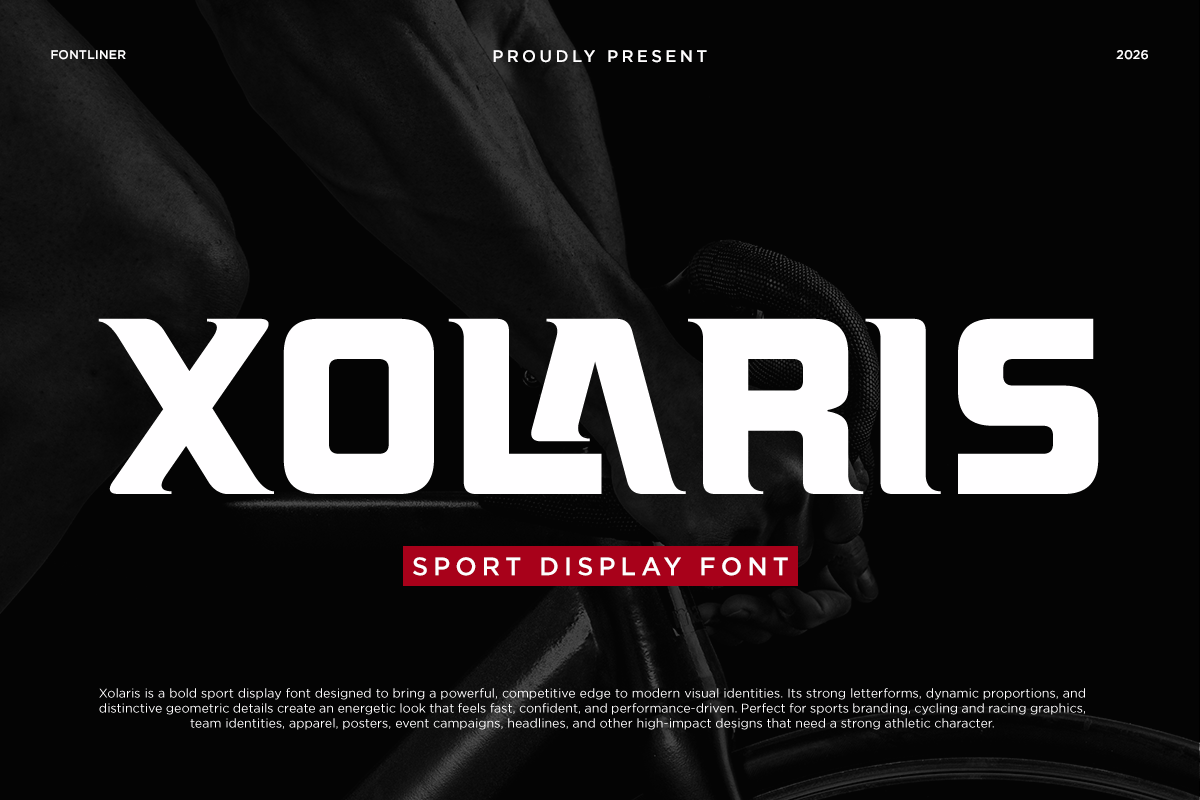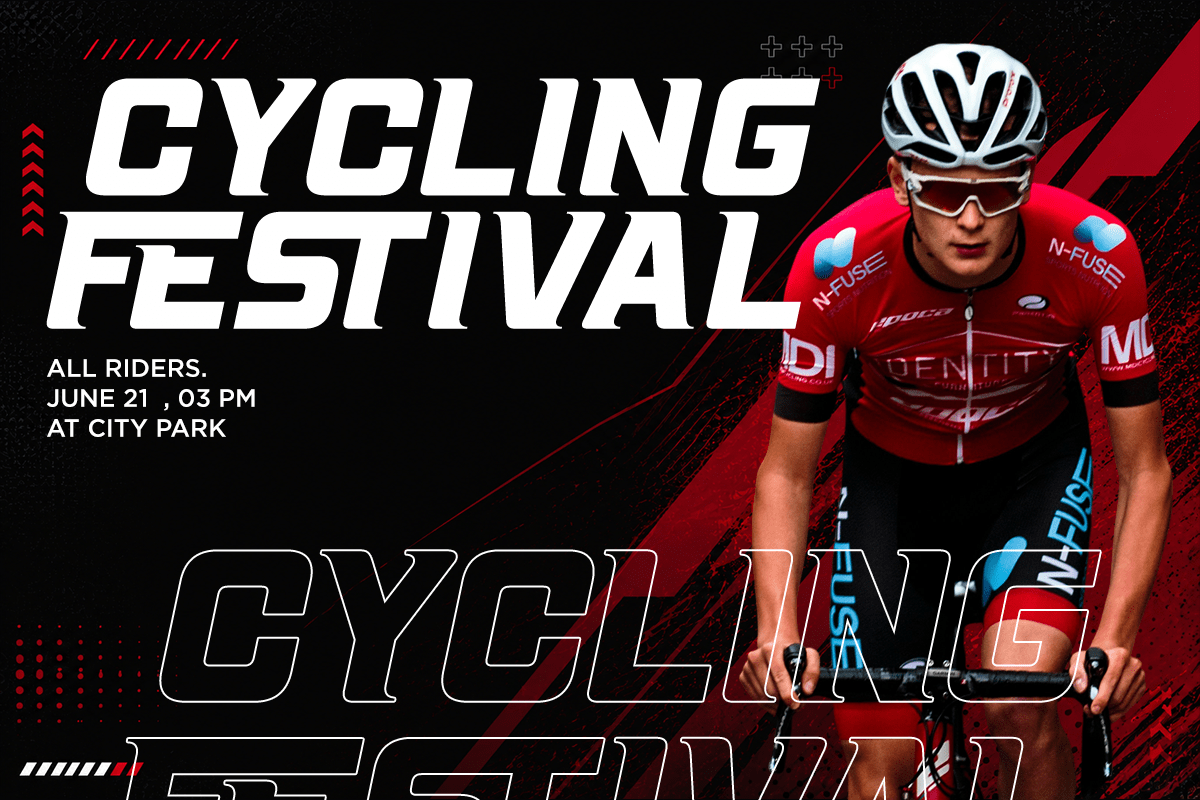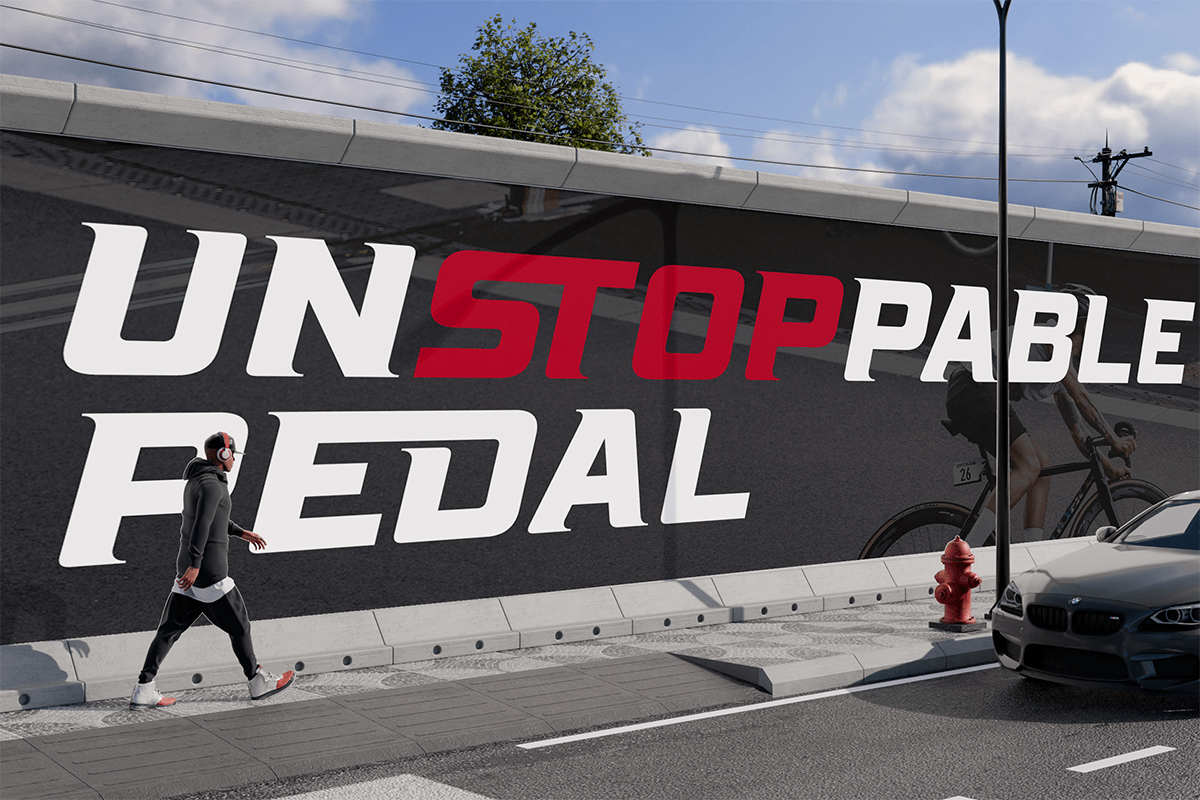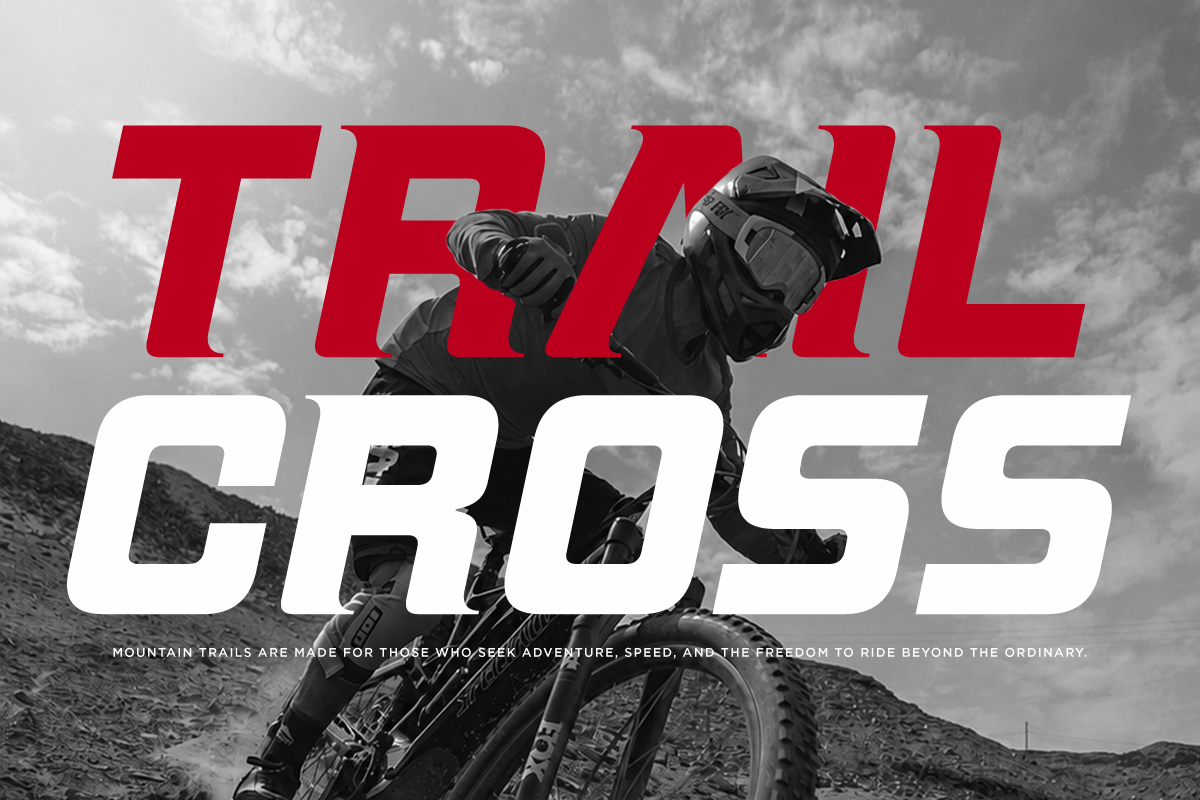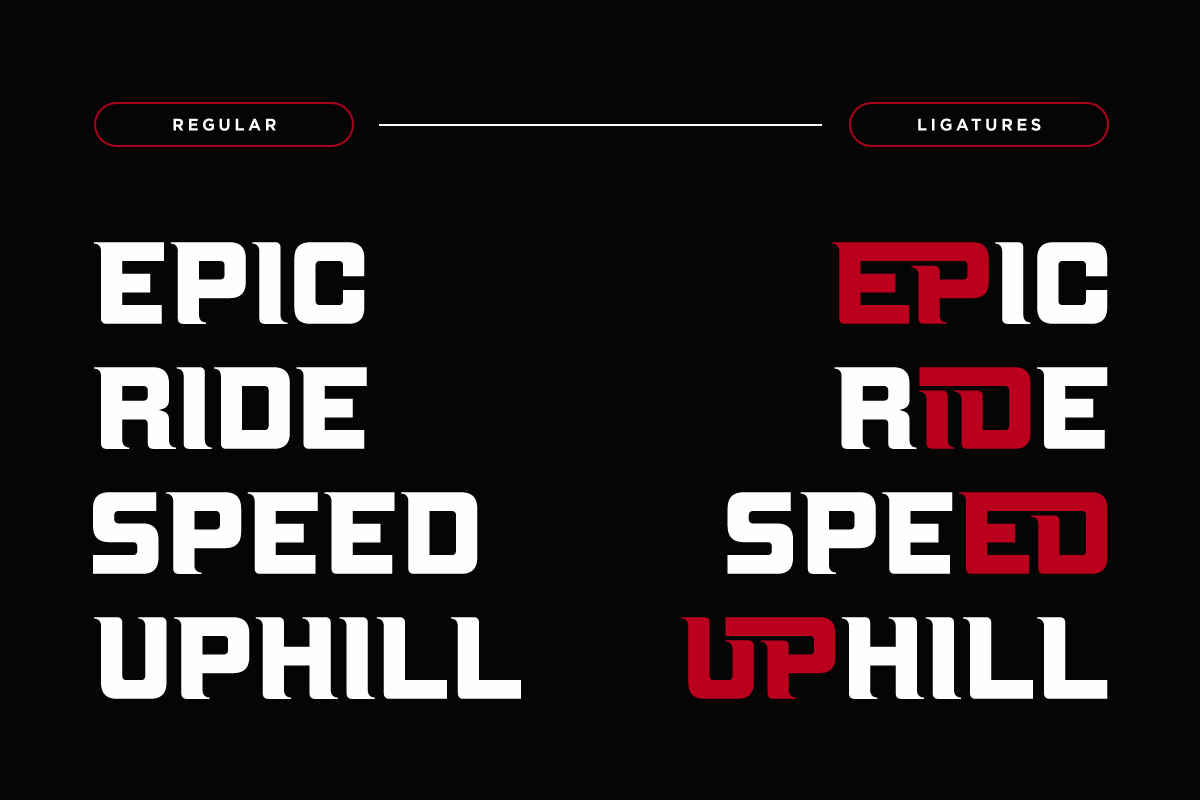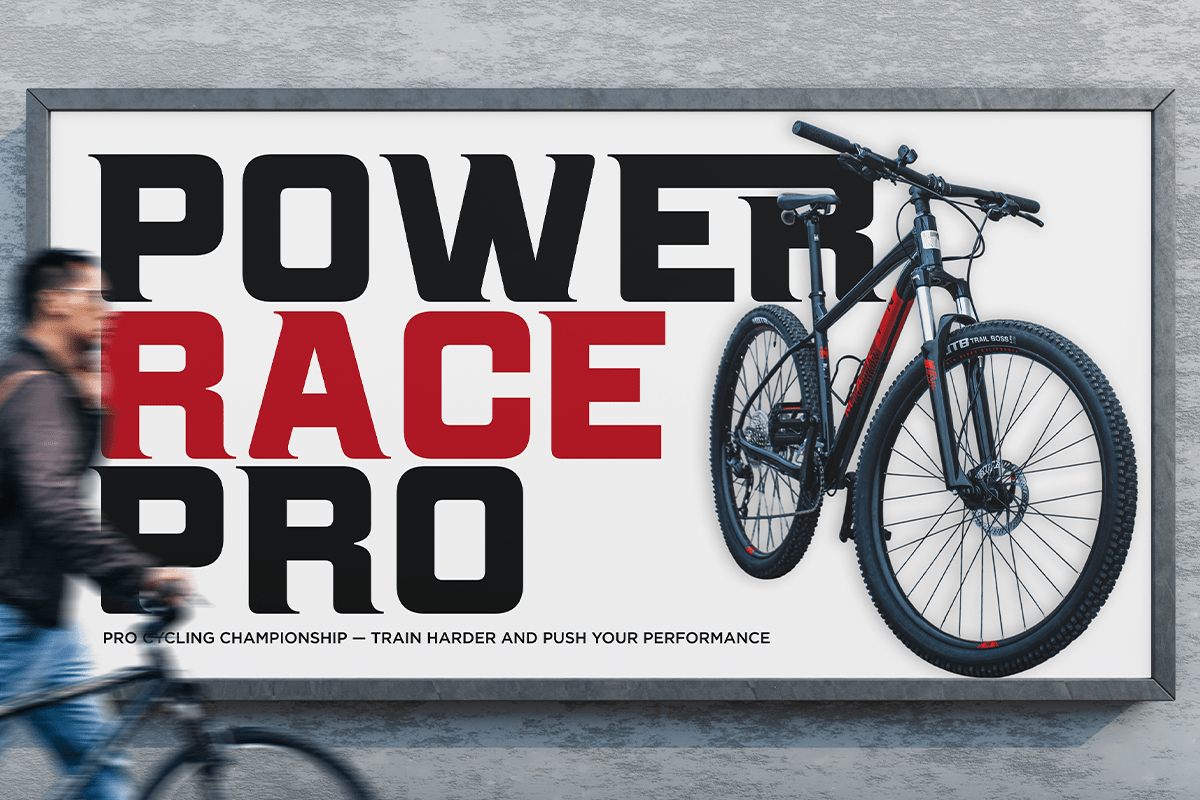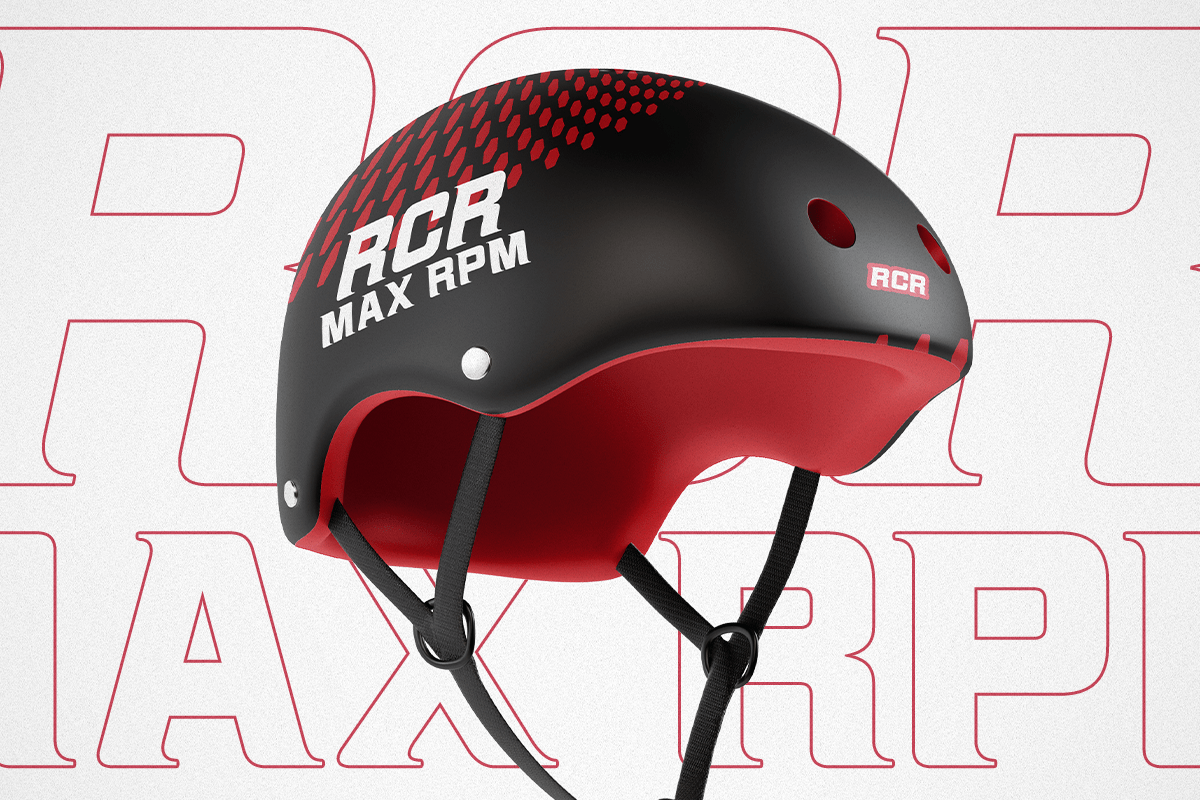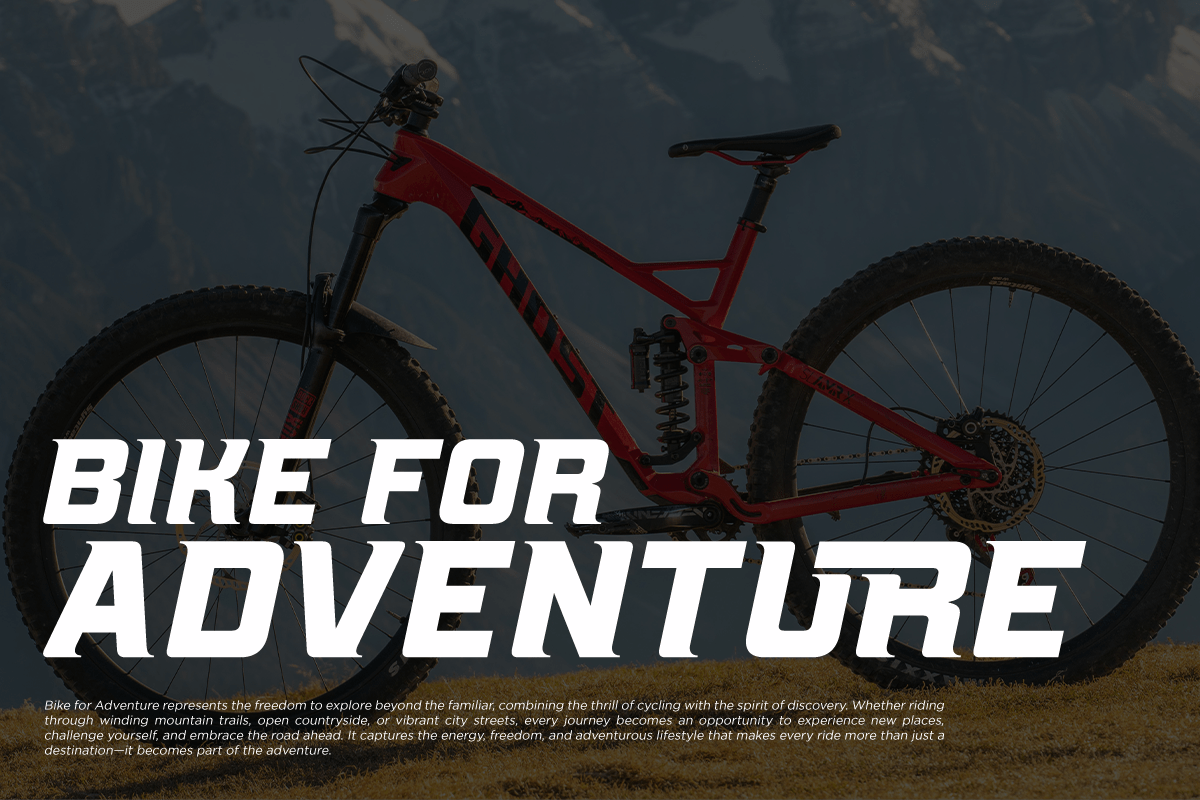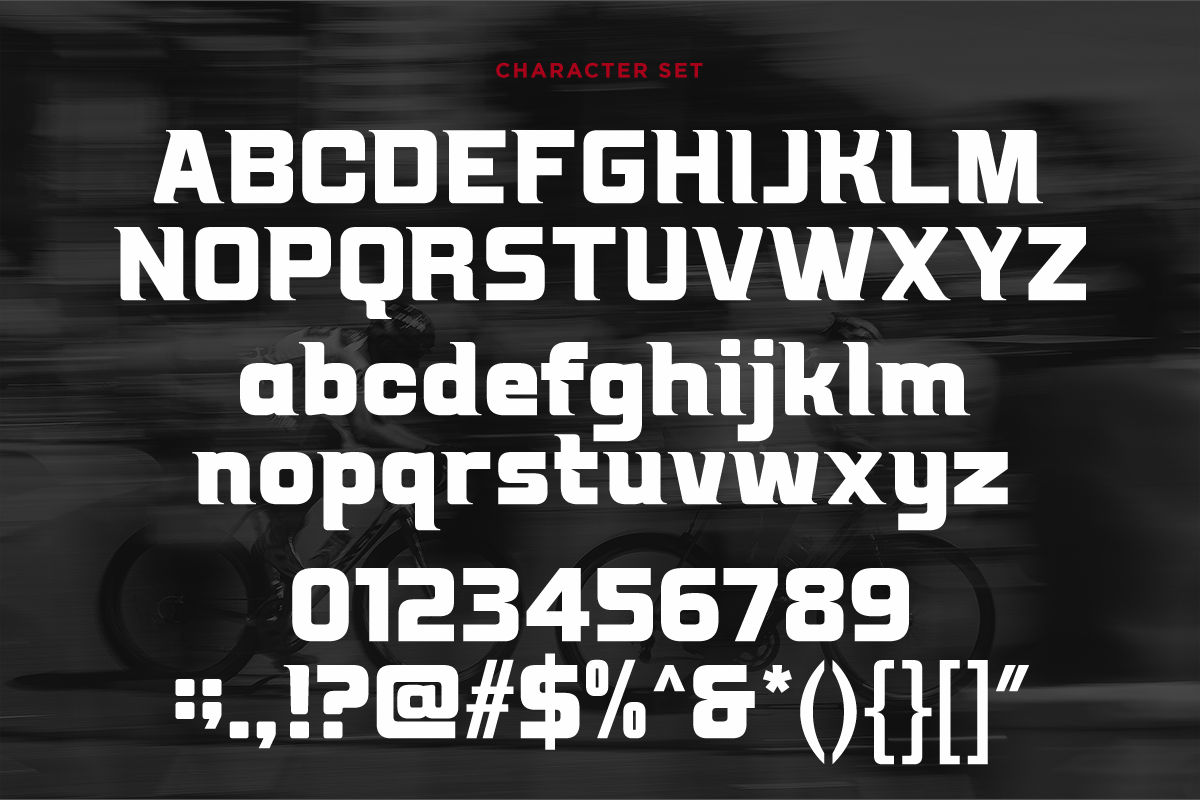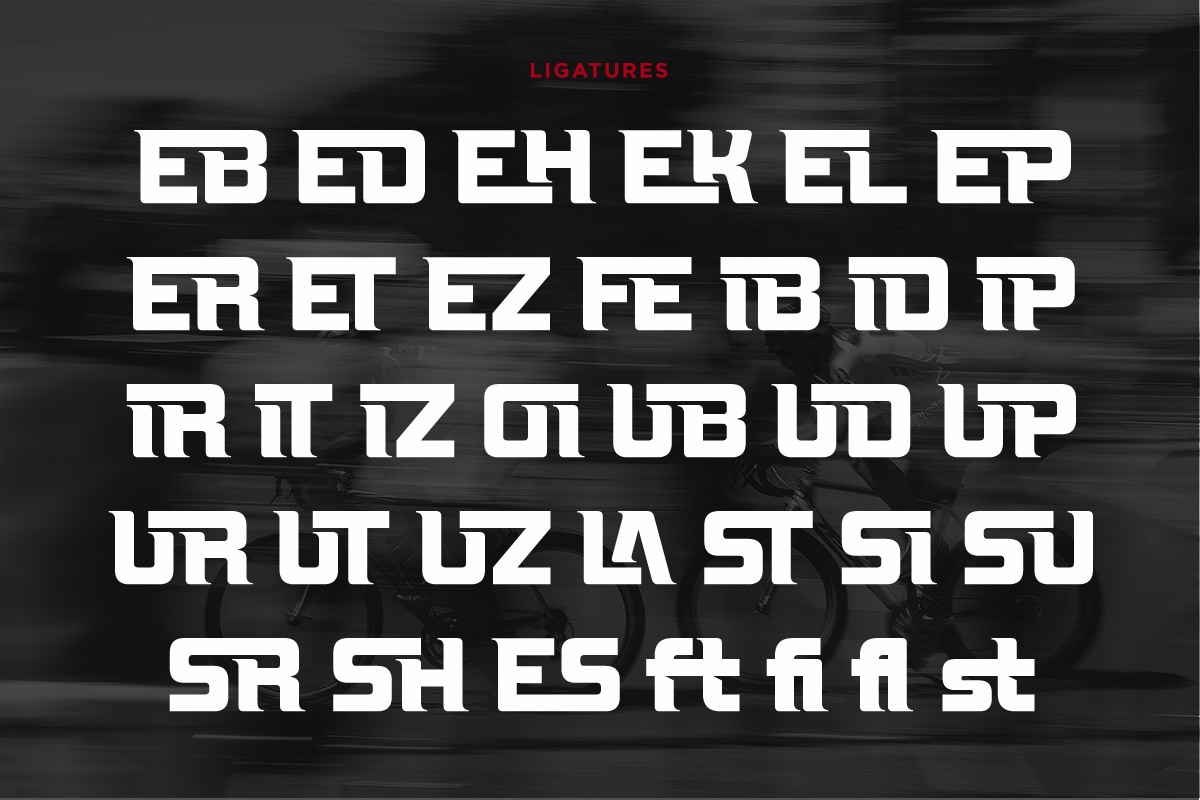
Xolaris – Sports Display Font
Xolaris is a bold sports display font crafted for high-impact designs that demand speed, power, and competitive energy. Its strong geometric structure, dynamic letterforms, and distinctive athletic character make it an excellent choice for creating attention-grabbing headlines and visual identities.
Designed for the world of cycling, racing, fitness, outdoor adventure, and extreme sports, Xolaris works perfectly for sports branding, team identities, cycling events, athletic apparel, merchandise, posters, social media graphics, advertising, and promotional campaigns. Its bold display style gives every composition a fast-paced and contemporary feel.
From cycling festival posters and race graphics to sportswear branding and adventure campaigns, Xolaris delivers a confident visual presence that helps your typography stand out. It is especially effective for large headlines, logos, slogans, numbers, and short statements where maximum impact is needed.
- Regular and Italic
- Stylistic Ligatures
- Uppercase and Lowercase
- Number, Symbol, and Punctuation
- Multilingual Support